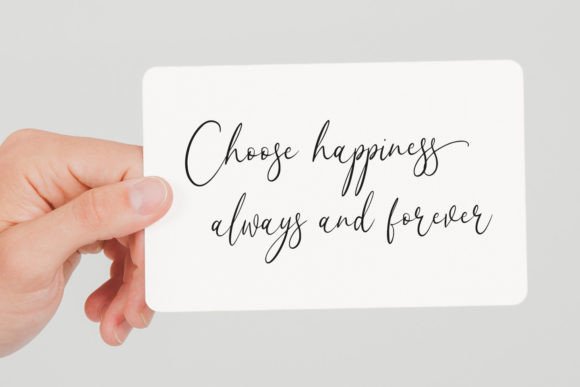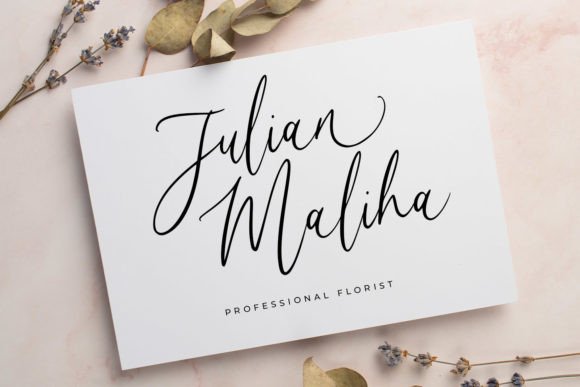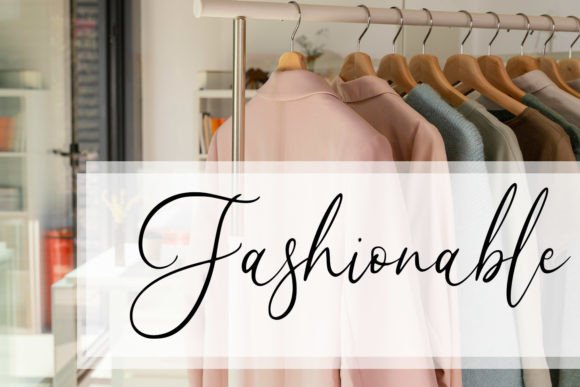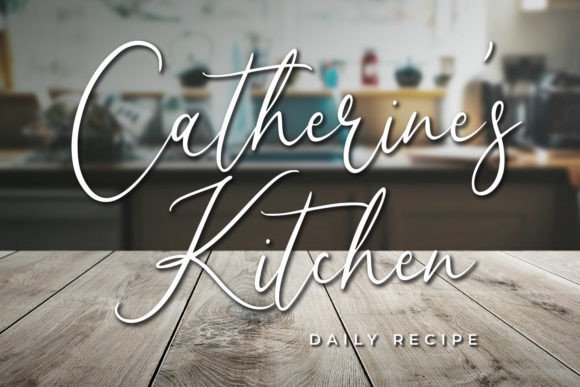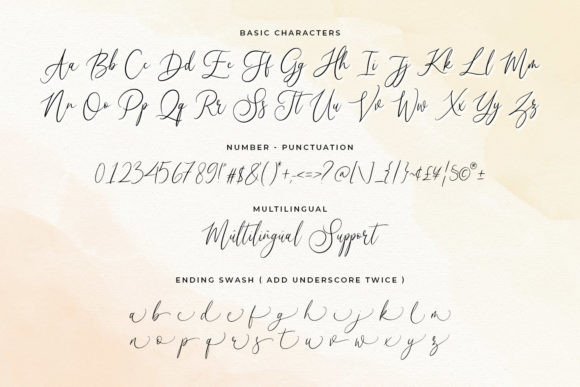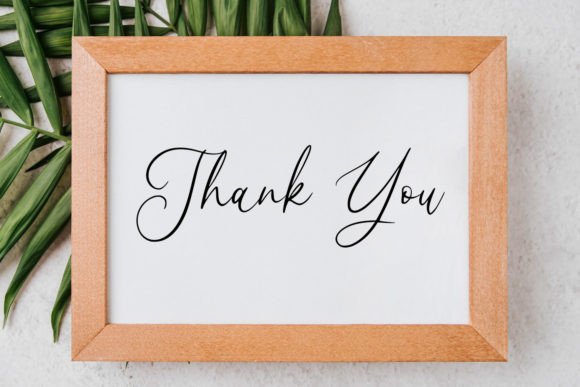
Introducing Flourish Font: The Elegant and Dainty Handwritten Font for Crafty Ideas
Are you a designer or crafter looking for a font that adds a touch of elegance and whimsy to your projects? Look no further than Flourish Font, a beautiful handwritten font that features sweet and delicate swashes. With its original look and versatility, Flourish Font is perfect for a wide range of crafty ideas, from letterheads and titles to stationery and more.
What is Flourish Font?
Flourish Font is a carefully crafted handwritten font that boasts an elegant and dainty appearance. Its delicate swashes and sweet flourishes make it perfect for adding a touch of sophistication and whimsy to any project. Whether you’re creating a letterhead, title, or stationery, Flourish Font is sure to impress.
Key Features of Flourish Font
• Elegant and Dainty Design: Flourish Font features a beautiful, handwritten design that is both elegant and dainty.
• Sweet and Delicate Swashes: The font’s sweet and delicate swashes add a touch of sophistication and whimsy to any project.
• Versatile: Flourish Font is perfect for a wide range of crafty ideas, from letterheads and titles to stationery and more.
• Original Look: The font’s original look will appeal to designers and crafters looking for a unique and eye-catching font.
Uses for Flourish Font
Flourish Font is perfect for a variety of crafty ideas, including:
• Letterheads: Add a touch of elegance and sophistication to your letterheads with Flourish Font.
• Titles: Use Flourish Font to create beautiful and eye-catching titles for your projects.
• Stationery: Add a touch of whimsy and sophistication to your stationery with Flourish Font.
• Branding: Use Flourish Font to create a unique and memorable brand identity.
• Packaging: Add a touch of elegance and sophistication to your packaging with Flourish Font.
Why Choose Flourish Font?
There are many reasons why designers and crafters choose Flourish Font for their projects. Here are just a few:
• Unique and Eye-Catching: Flourish Font’s original look and delicate swashes make it a unique and eye-catching font that will set your projects apart.
• Easy to Read: Despite its elegant and dainty design, Flourish Font is easy to read and understand.
• Versatile: Flourish Font can be used for a wide range of crafty ideas, from letterheads and titles to stationery and more.
• High-Quality: Flourish Font is a high-quality font that is designed to deliver exceptional results.
Tips for Using Flourish Font
Here are a few tips for using Flourish Font in your projects:
• Use it Sparingly: While Flourish Font is beautiful, it can be overwhelming if used too much. Use it sparingly to add a touch of elegance and sophistication to your projects.
• Experiment with Different Sizes: Flourish Font looks great in a variety of sizes. Experiment with different sizes to find the one that works best for your project.
• Pair it with Other Fonts: Flourish Font pairs well with other fonts. Experiment with different font combinations to find the one that works best for your project.
Flourish Font is a beautiful and elegant handwritten font that features sweet and delicate swashes. With its original look and versatility, it’s perfect for a wide range of crafty ideas, from letterheads and titles to stationery and more. Whether you’re a designer or crafter, Flourish Font is sure to impress. So why wait? Download Flourish Font today and start adding a touch of elegance and sophistication to your projects.